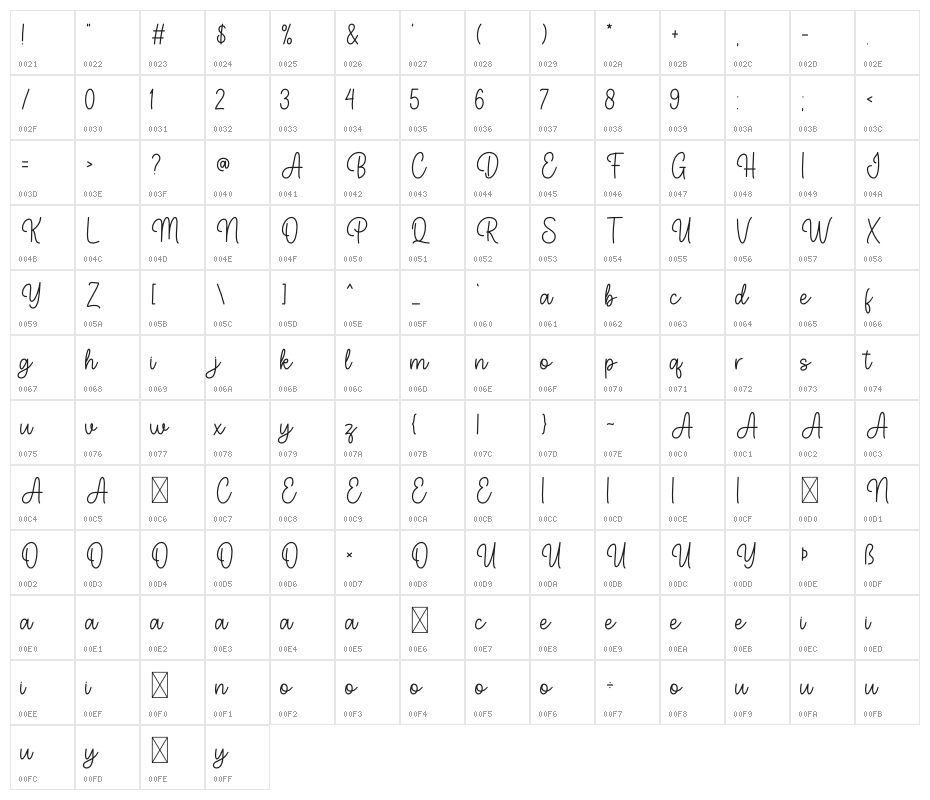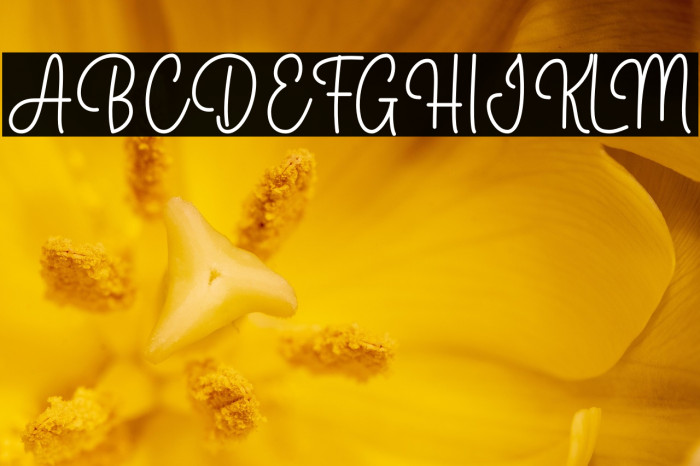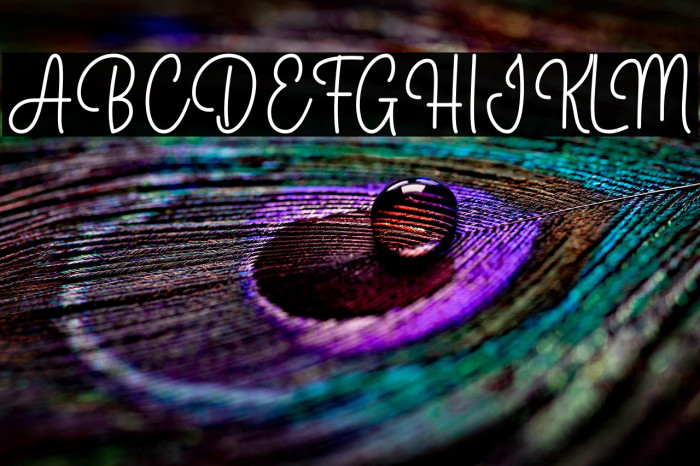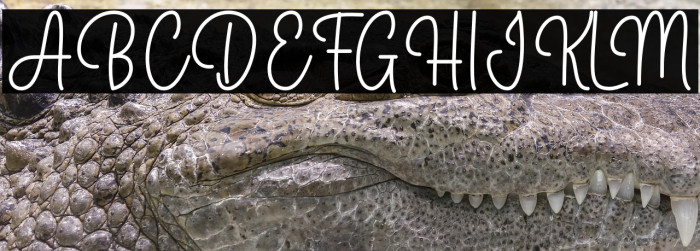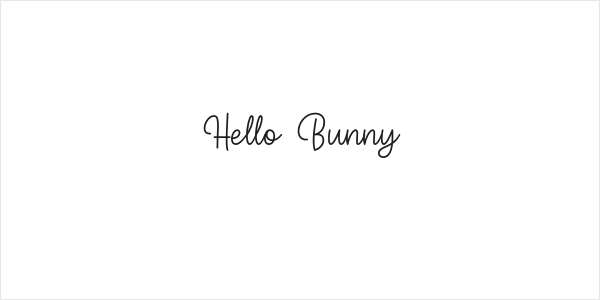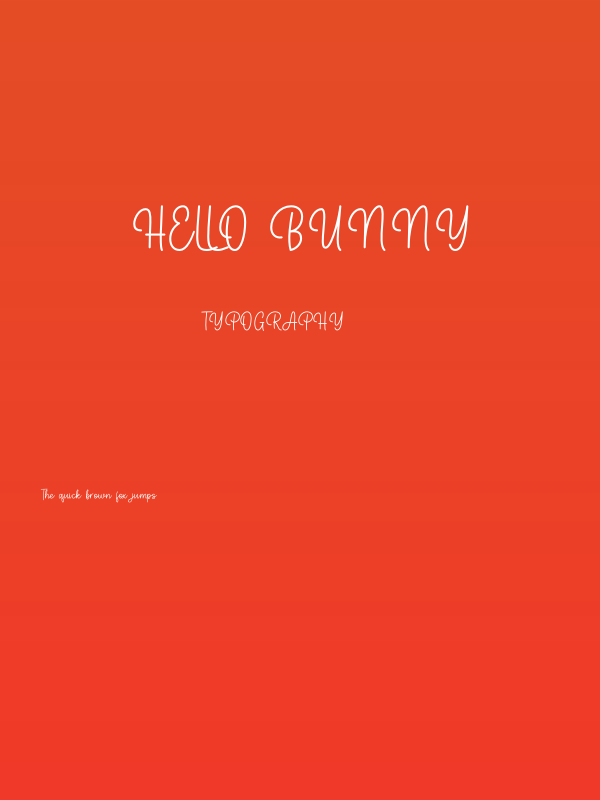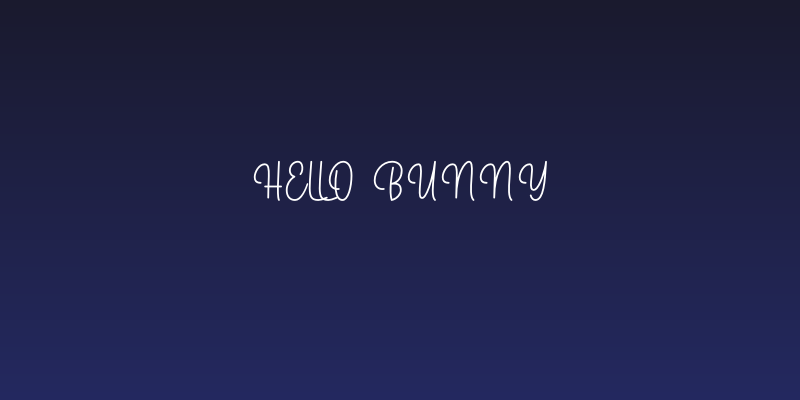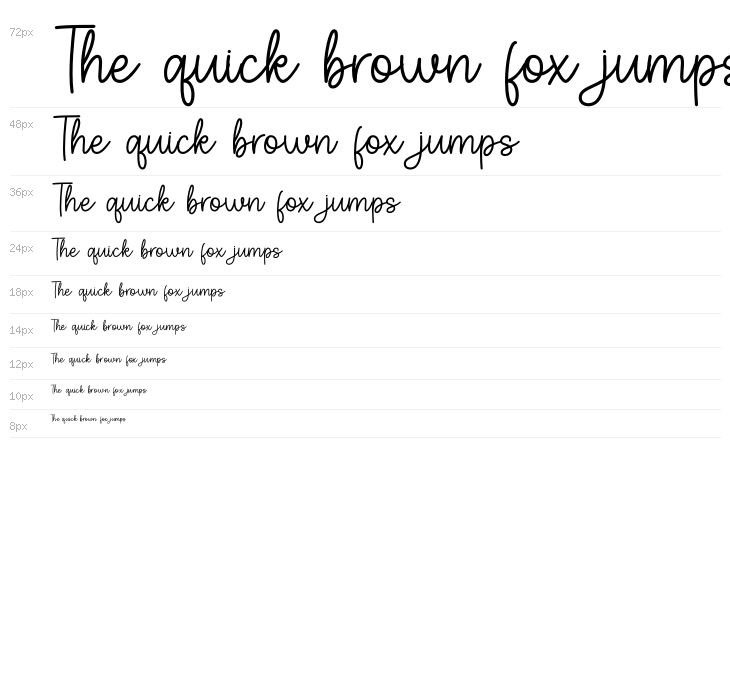
Hello Bunny Font
Hello Bunny Description
This font features a playful and whimsical script style, characterized by its smooth, flowing lines and elegant curves. The uppercase letters are slightly larger and more pronounced, while the lowercase letters maintain a consistent, rounded appearance. The numerals and special characters follow the same fluid design, ensuring a cohesive look across all text elements. The font's overall aesthetic is friendly and approachable, making it suitable for a variety of creative projects. Its handwritten quality adds a personal touch, ideal for invitations, greeting cards, and branding materials that require a warm and inviting feel.
| Use Case | Logos, Invitations, Greeting Cards |
| Proposed Projects | Ideal for invitations, greeting cards, branding, and any project needing a personal touch. |